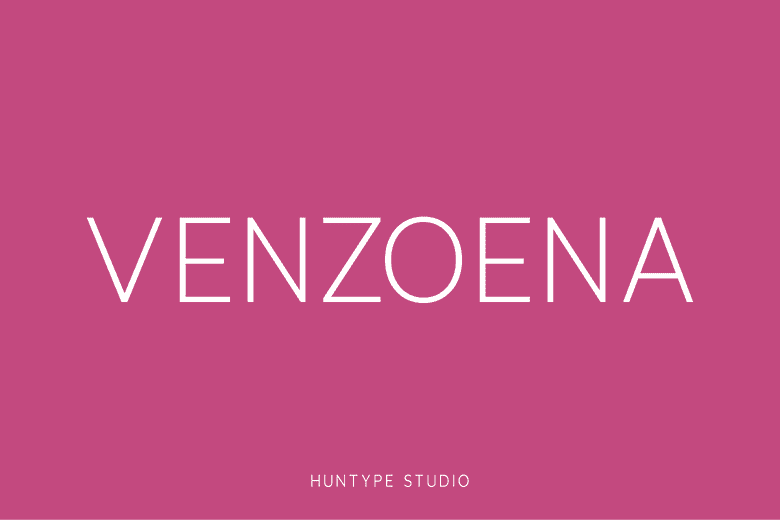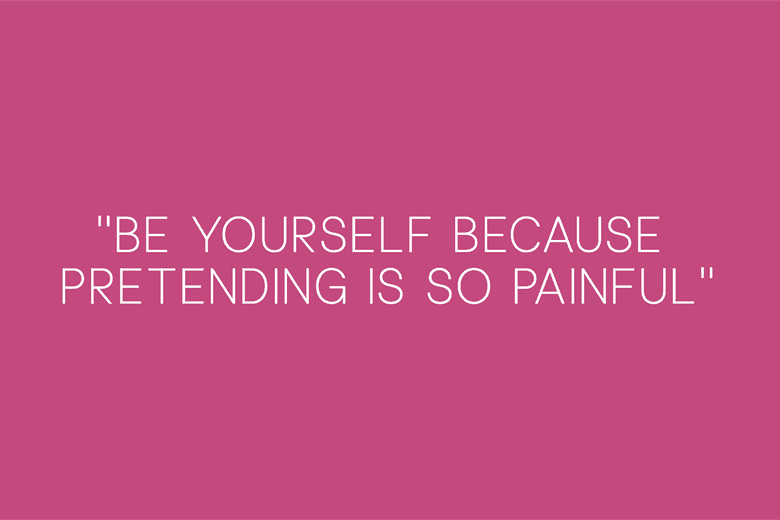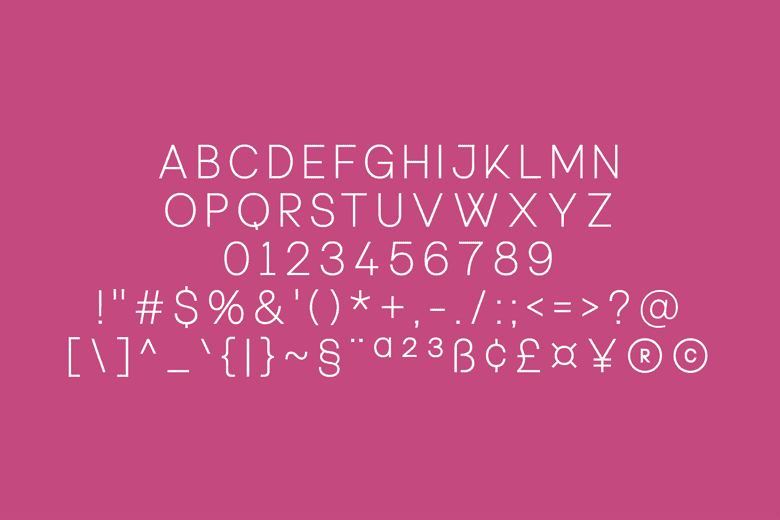
Venzoena is an all-caps sans serif font that suits every setting, from branding or web-based headings, to print layout. With its clean lines and slight contrast it’s ideal for branding purposes as well.